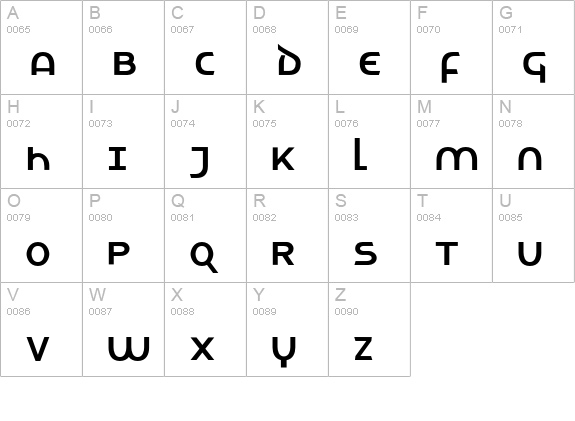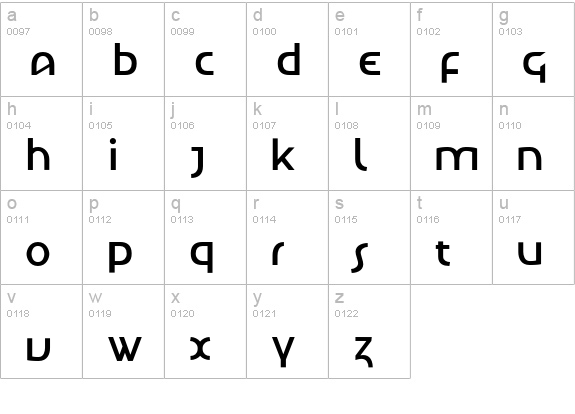
TechnoBold Font Details
TechnoBold is a striking and dynamic font that is sure to make a bold statement in any design project. With its sleek and futuristic appearance, this font exudes a sense of modernity and innovation. The strong and angular letterforms give TechnoBold a distinct edge, making it perfect for headlines, logos, and other display purposes. But what sets TechnoBold apart from other fonts is its availability for free download. That's right, this exceptional font is freely available to download at FontsMarket.com. Whether you're a professional designer or a hobbyist, you can now access this powerful font without breaking the bank. With its versatility and unique aesthetic, TechnoBold can be used in a wide range of design projects. Its clean lines and bold presence make it ideal for technology-related branding, futuristic posters, or even edgy album covers. The font's high readability ensures that your message will be conveyed with clarity and impact. TechnoBold is designed to make a lasting impression. Its combination of strength and elegance creates a captivating visual experience that will captivate your audience. So why wait? Download TechnoBold today and unleash your creativity with this remarkable font. Remember, it's free and readily available at FontsMarket.com.